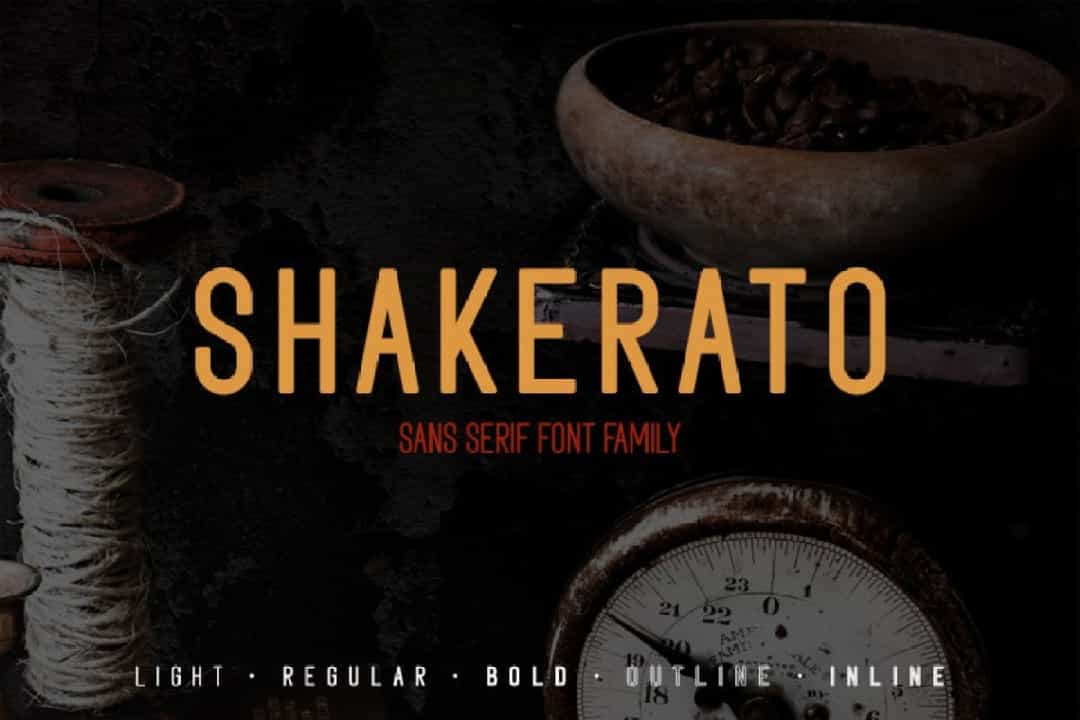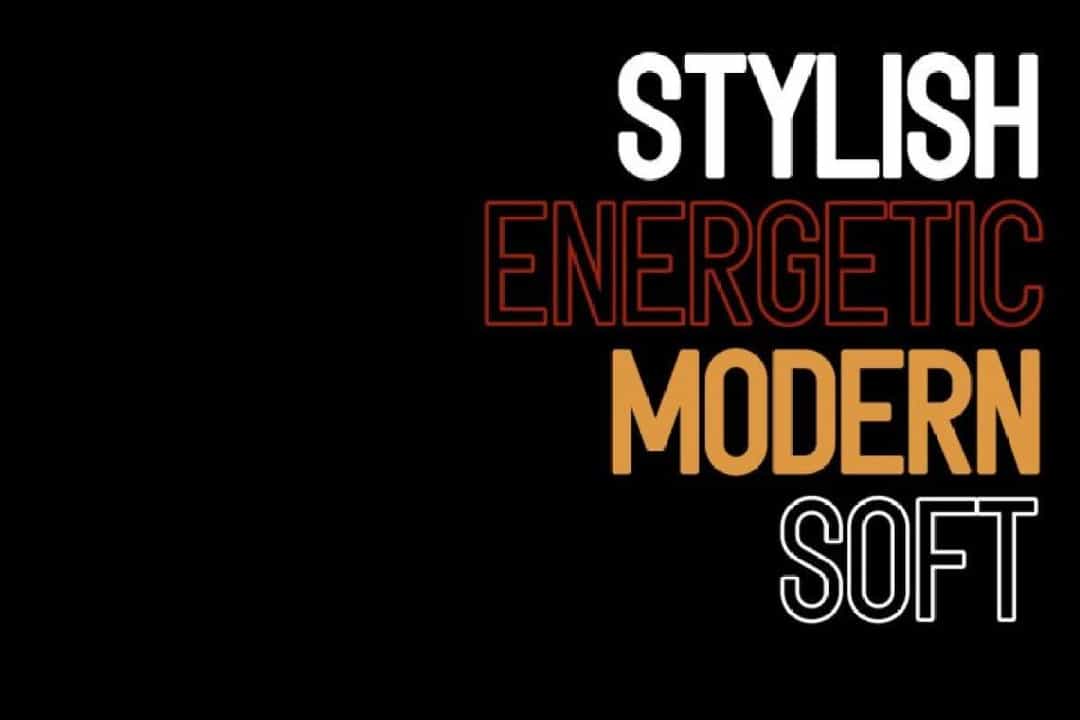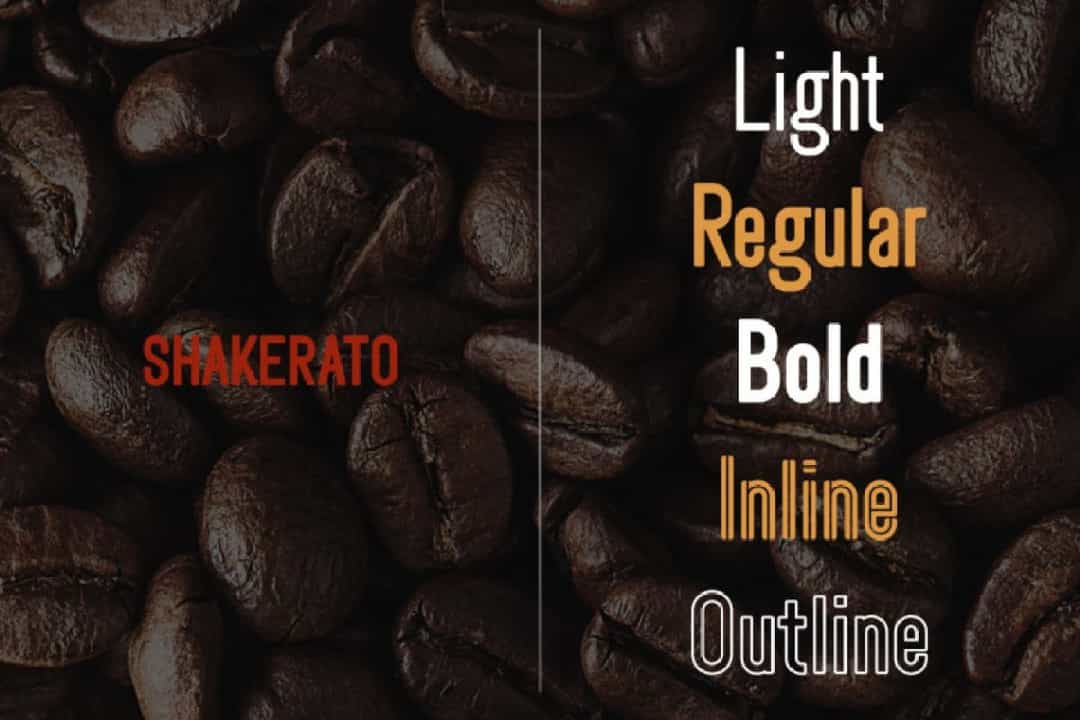
Shakerato font family is modern and sans-serif typeface. Intended as a efficient font with a high level of elegance an minimalistic ornamentation, it has traditional non-serif letters specially shaped to occupy a certain amount of space in a given composition, making Shakerato suitable for both large and small text sizes; its compact proportions allow to save space while maintaining readability, which makes it suitable for both titles and texts.